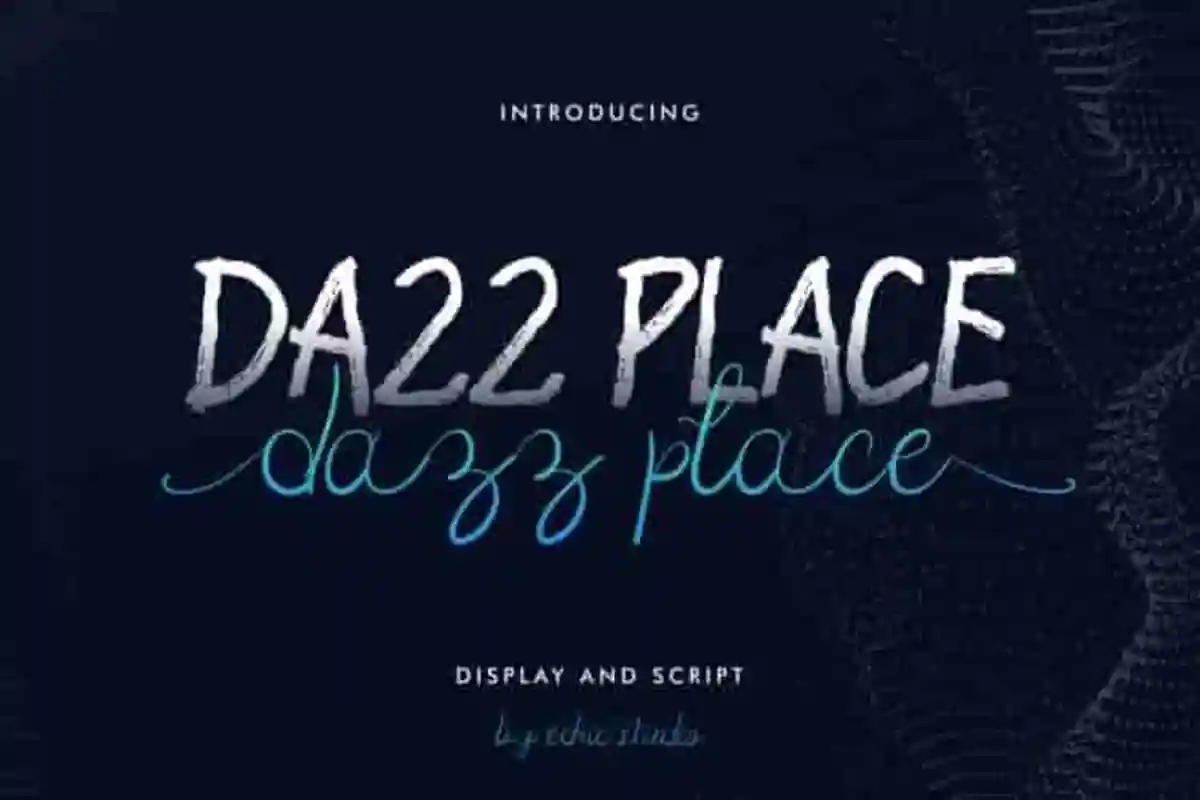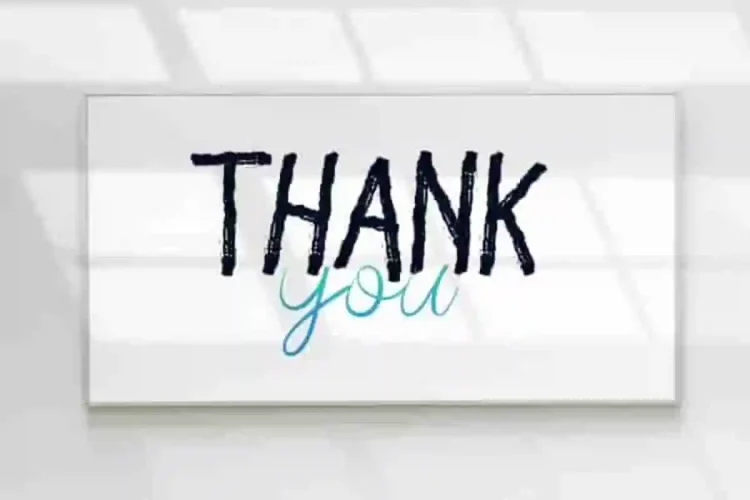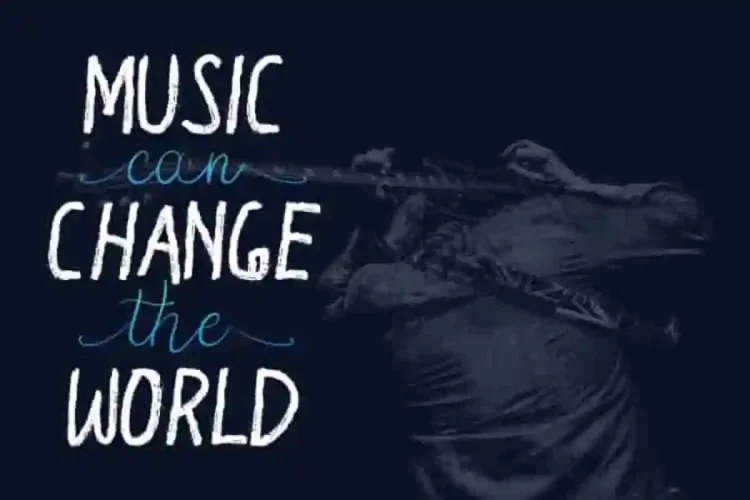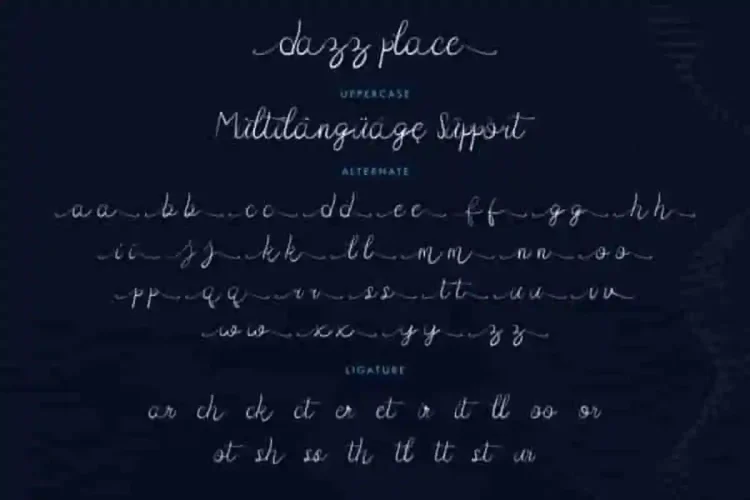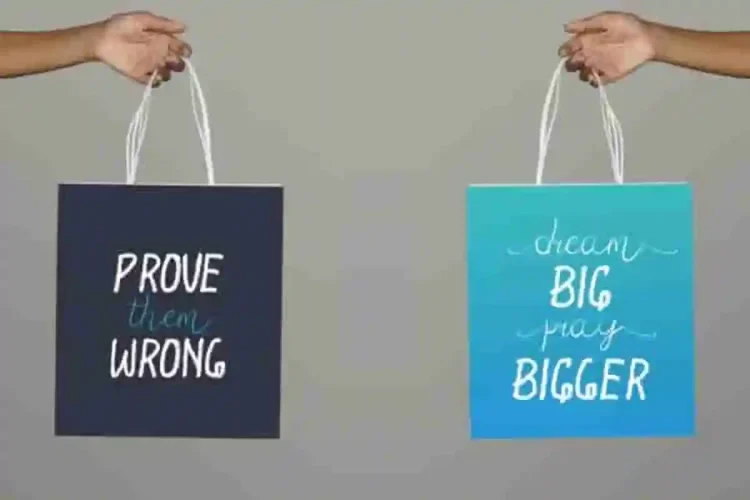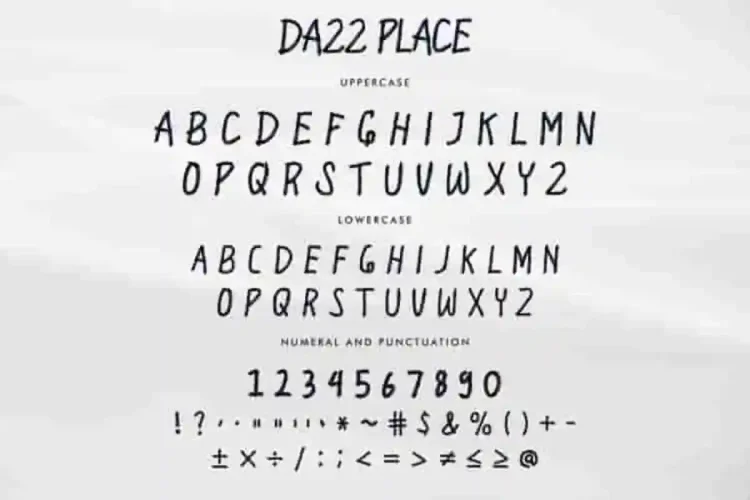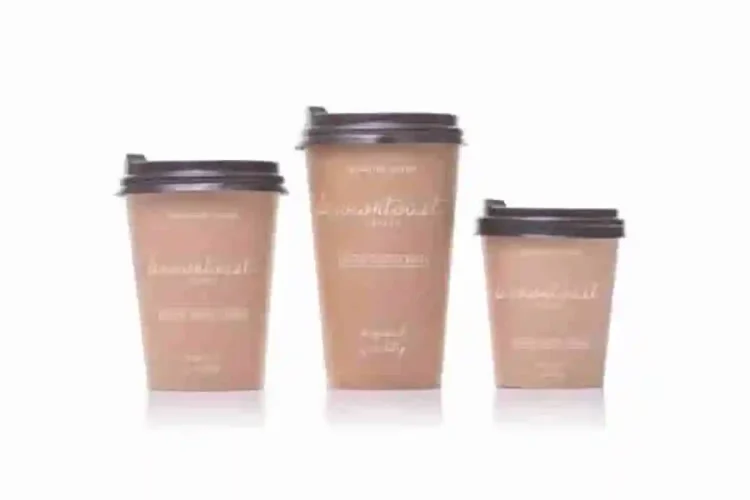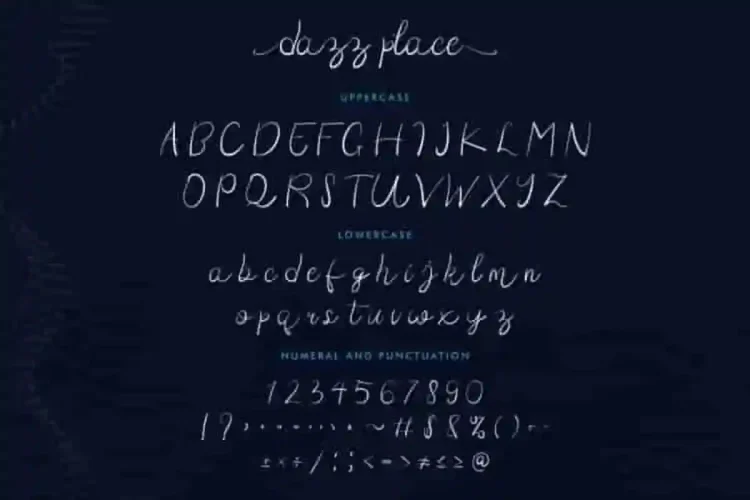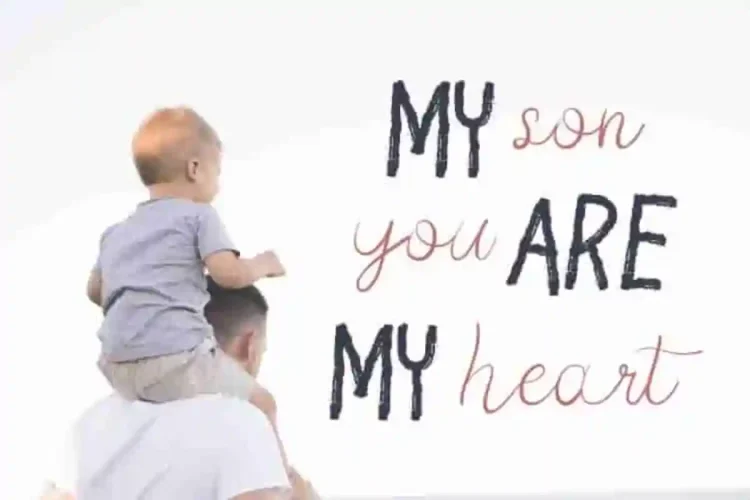
Dazz Place Brush Font Duo
Our newest creation : Dazz Place Brush Font Duo
This is a Font Duo, handcrafted from our Studio here in Indonesia. The artists/designers of this beautiful tyeface are Saila, Ega and Suci.
Dazz Place Brush Font Duo is an exclusive font family with two different styles. This font has a stunning characters set, perfectly managed with well spaced and kerning.
Dazz Place Brush Font Duo will be great for any projects including : branding, logo, stationery, business card, signage, flyer, brochure etc. Almost all industries will be match for this typeface: wedding, events, real estate, architect, law firm, florist, gardening, makeup artist, travel, hotel, musician etc.
There are two styles: Stylish calligraphy and Rough grunge brush display font